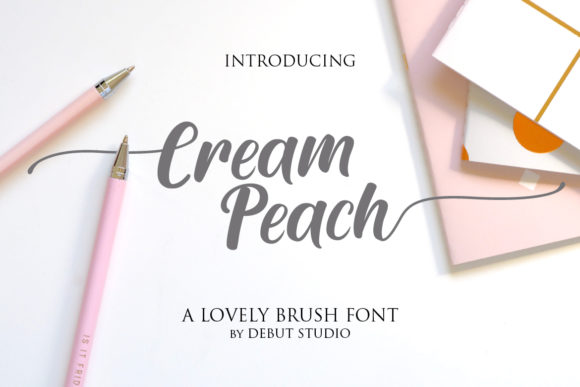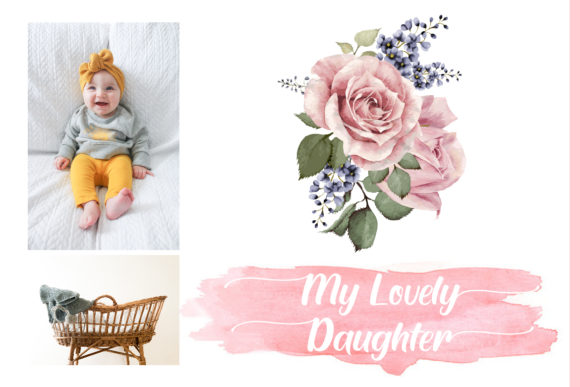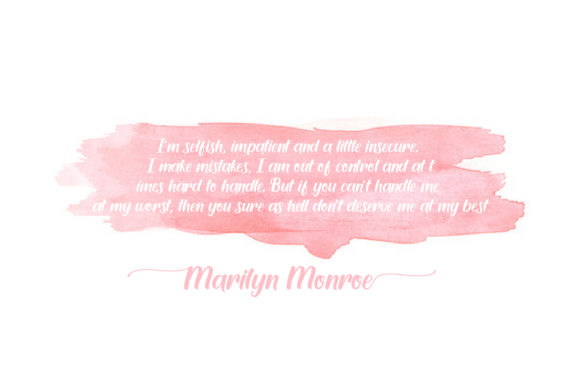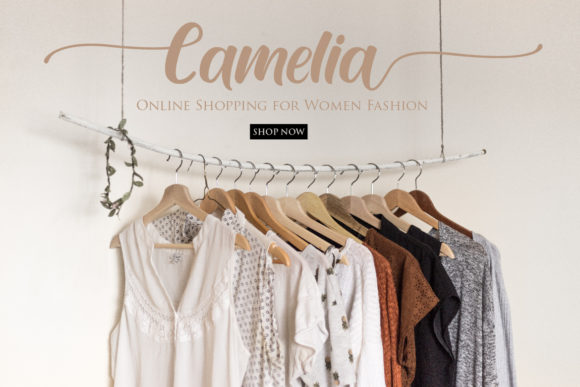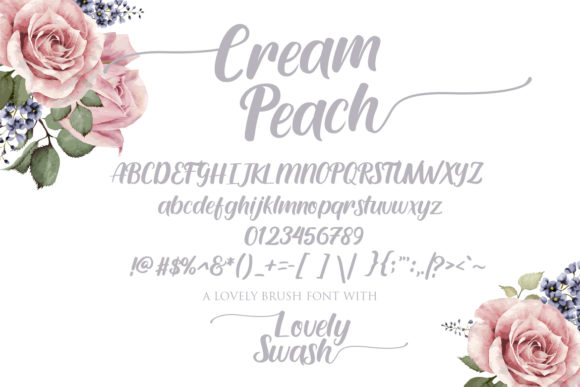
Cream Peach Font
About Cream Peach Font
Cream Peach is an incredibly romantic and sweet script font that delivers outstanding results. Use it to elevate any wedding project or invitation card!